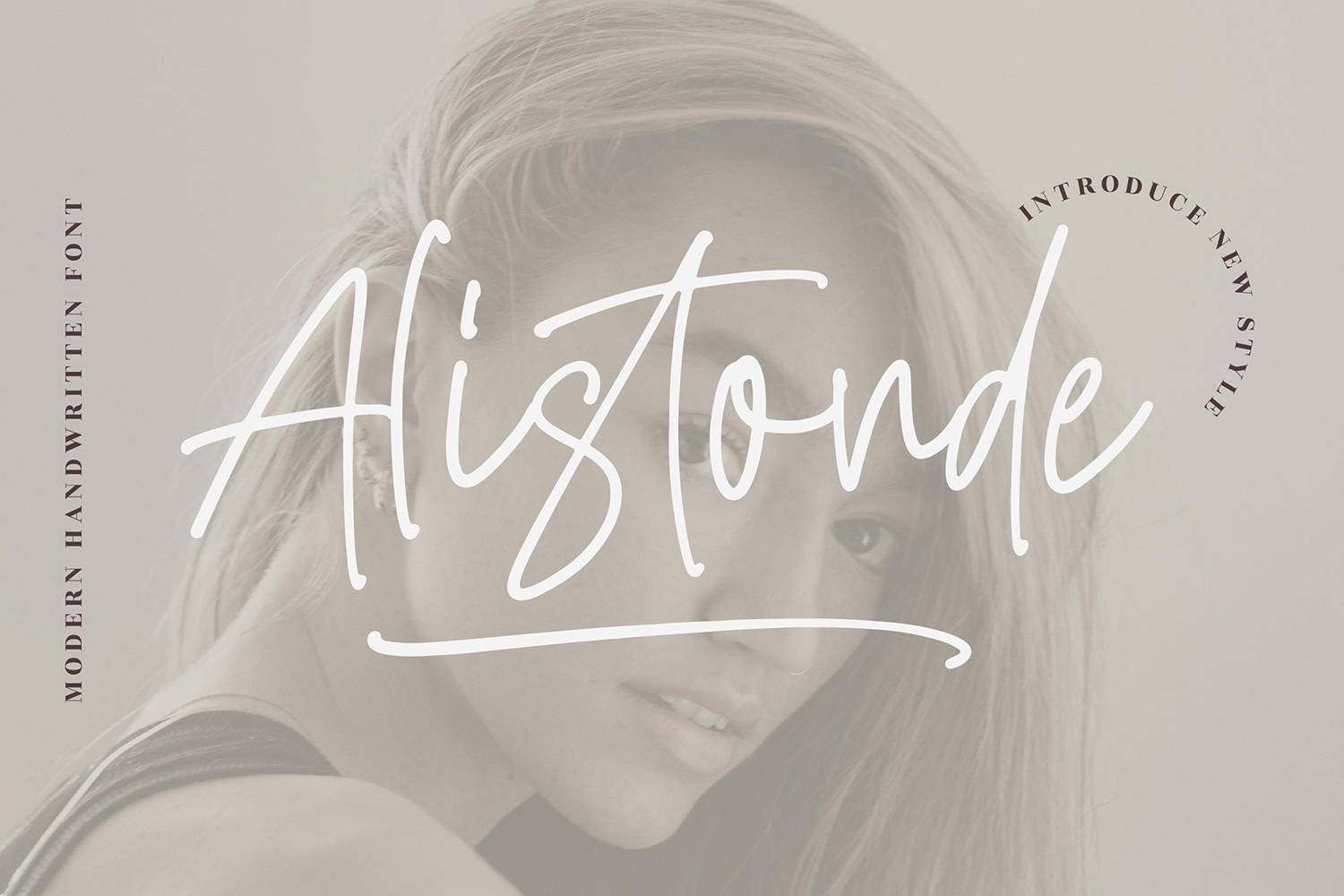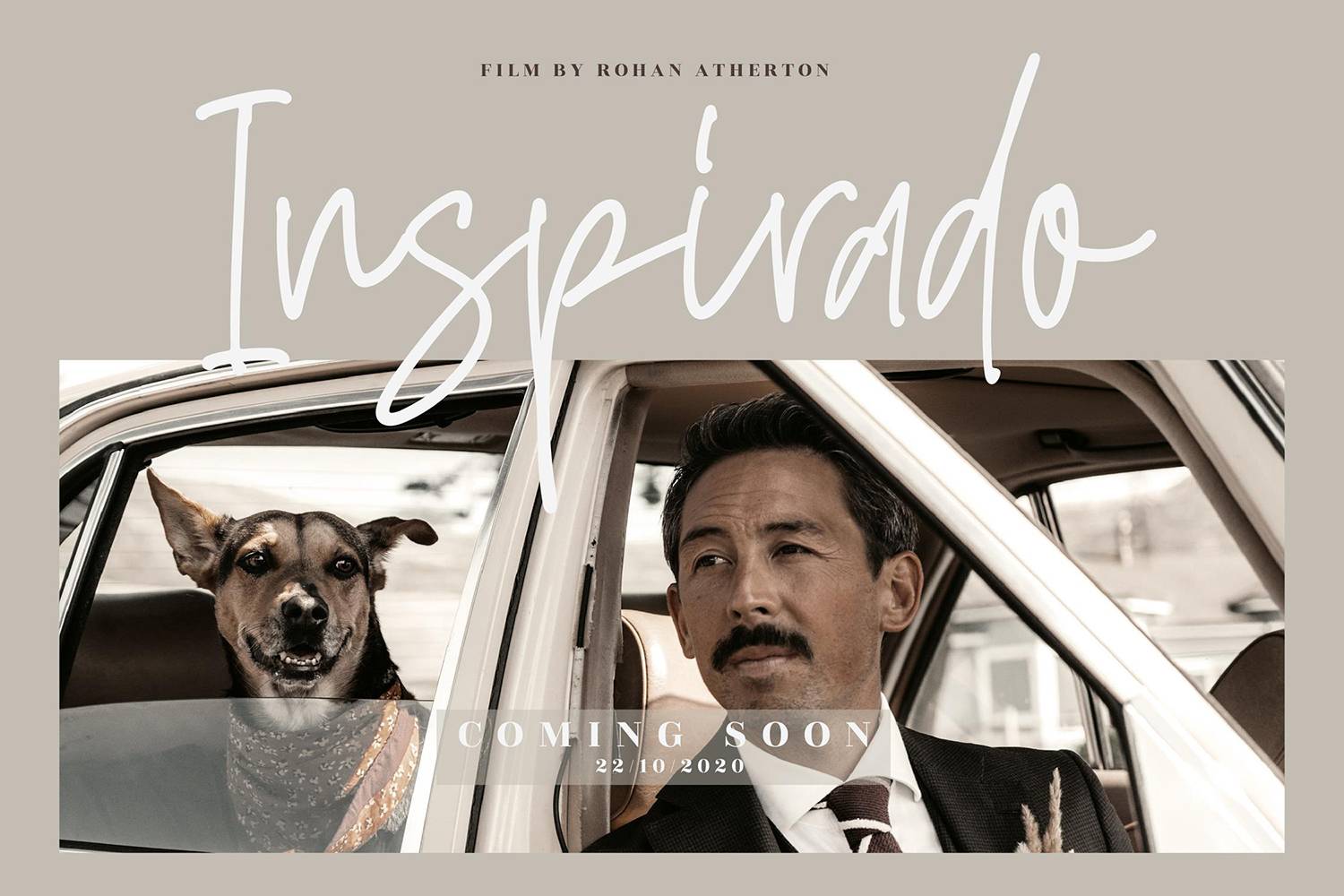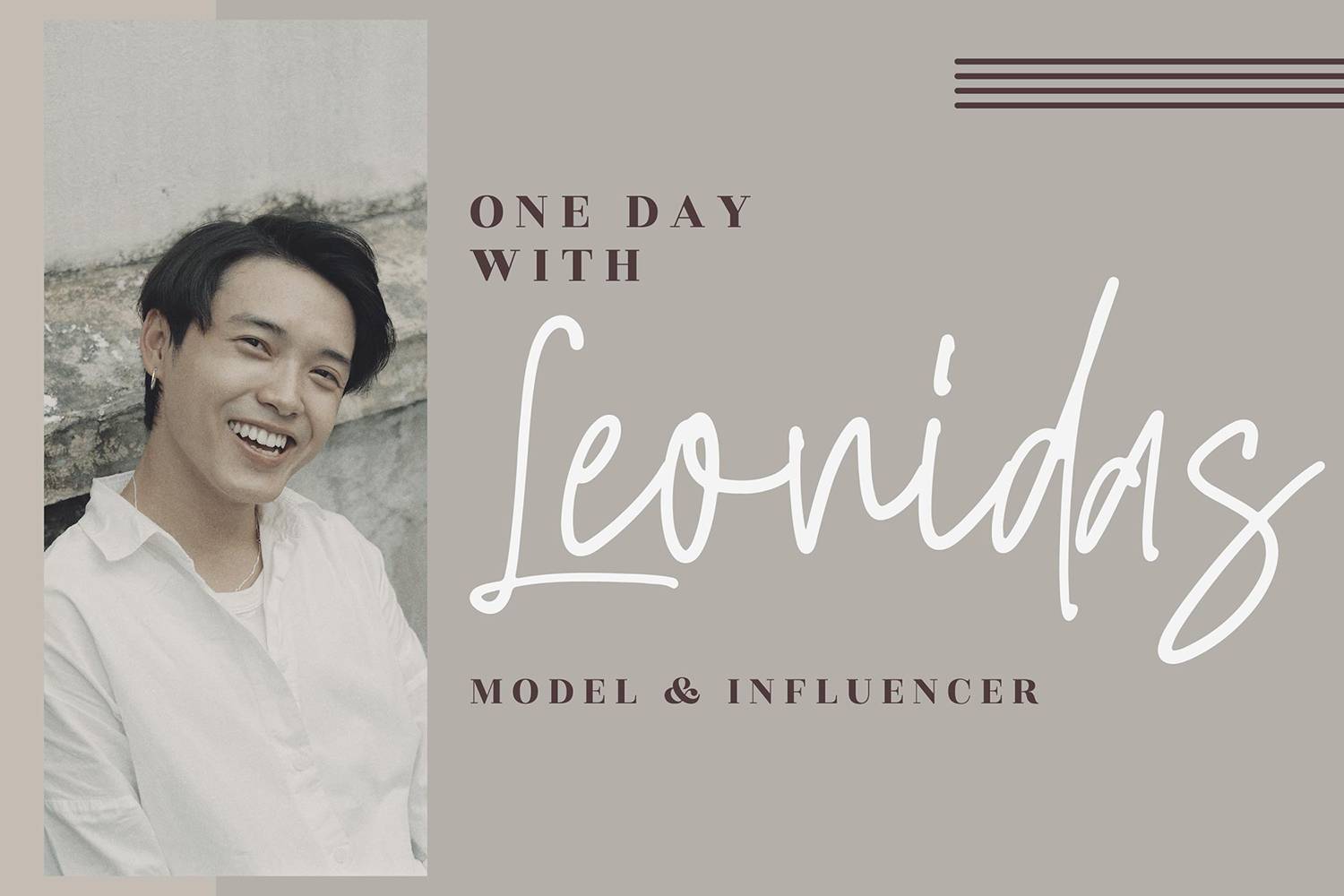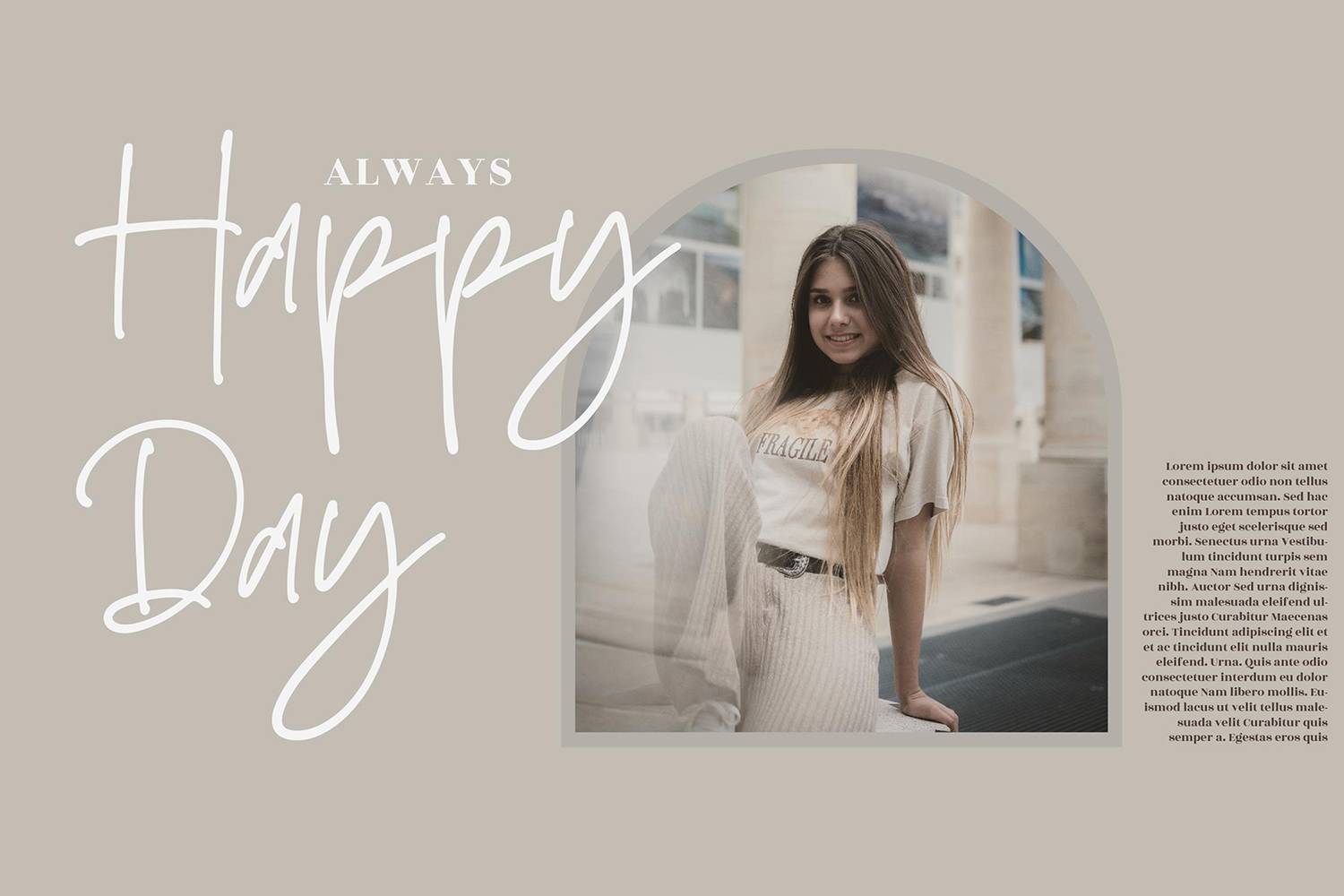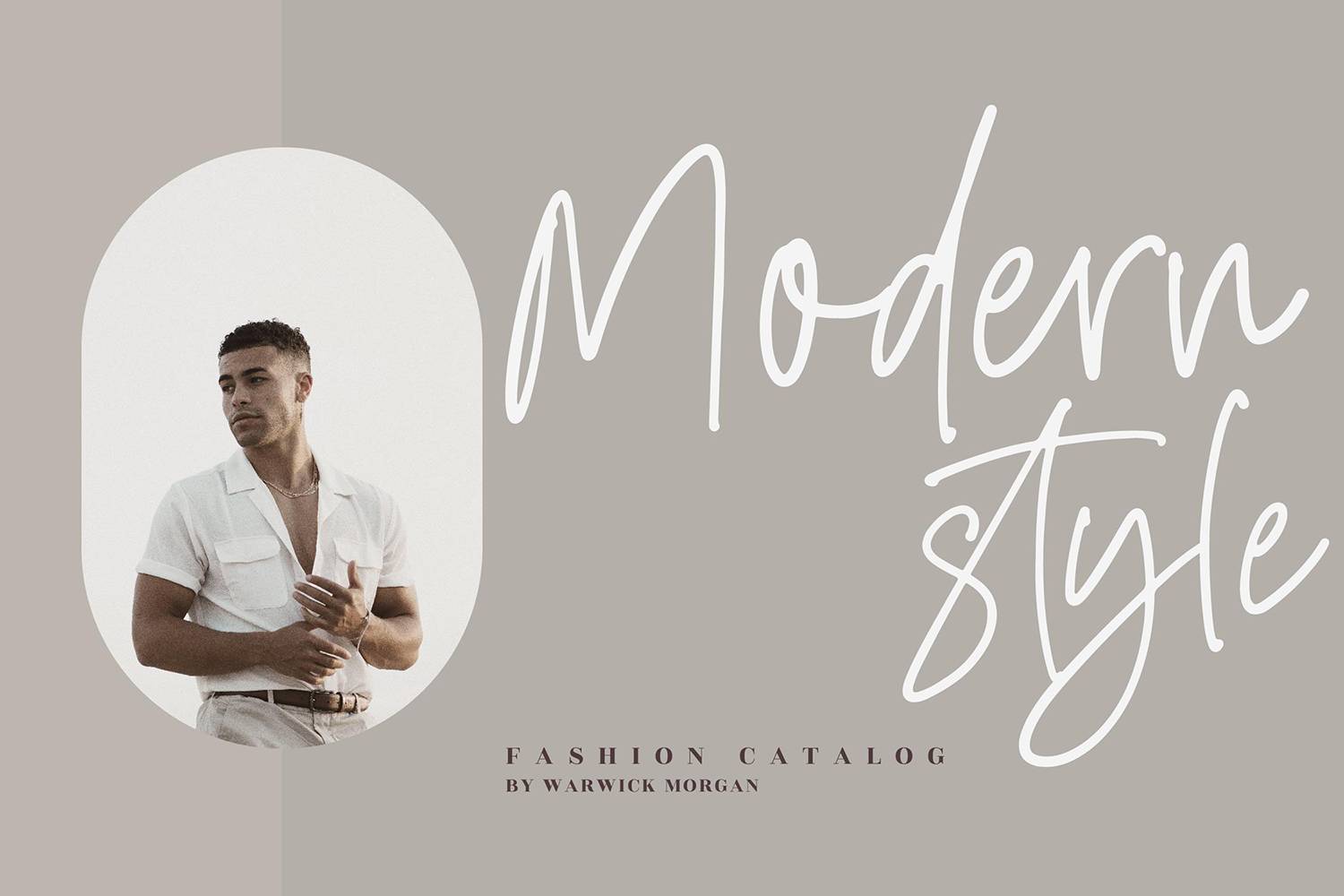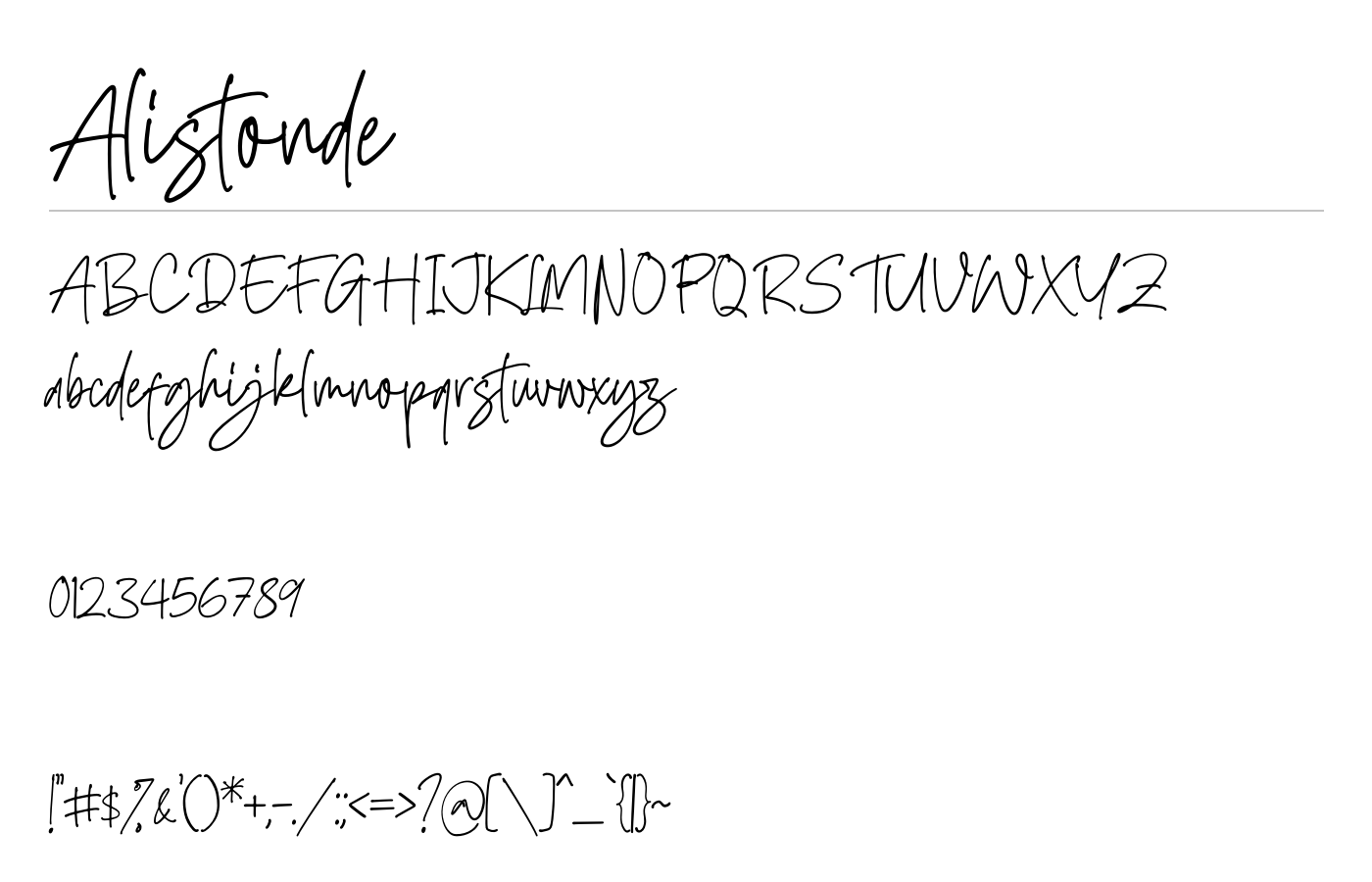
Alistonde is a lively, handwritten script font with a casual and airy feel, featuring thin, slightly irregular strokes that convey a natural, personal touch. Its loosely connected letterforms and tall x-height make it ideal for creative, informal designs such as invitations, branding, and social media graphics where a friendly, approachable vibe is desired. This font works best in display sizes and projects that seek to evoke charm and individuality.
Alistonde Font